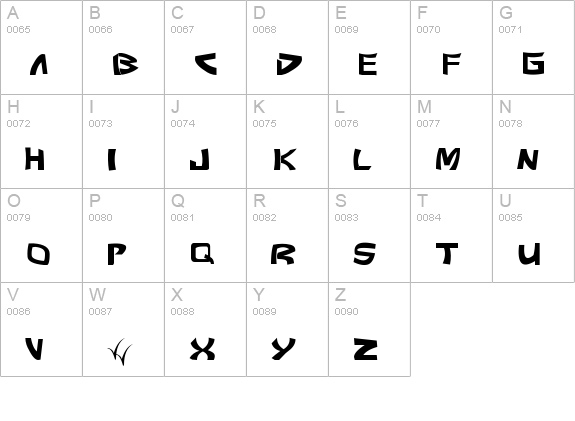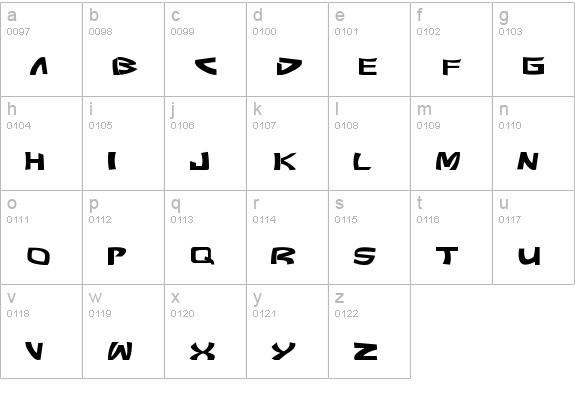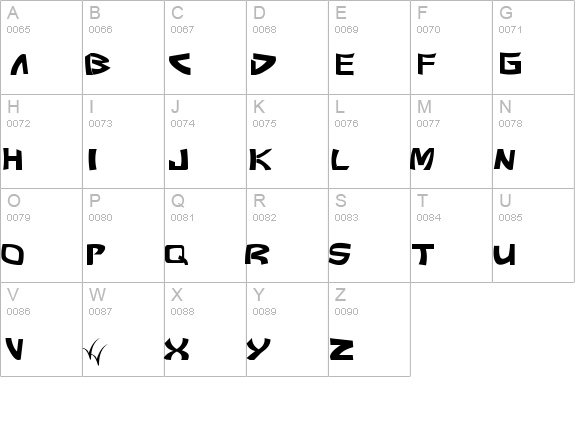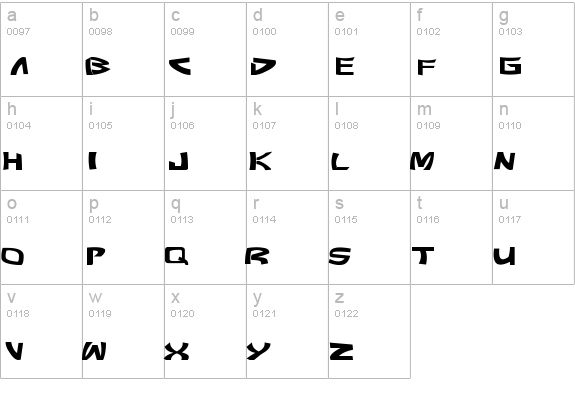
Pundit Font Details
Pundit font is a modern and sophisticated typeface that exudes elegance and style. Its sleek lines and sharp edges make it perfect for adding a touch of class to any design project. With its clean and crisp appearance, Pundit font is versatile and can be used for a variety of purposes, from branding to editorial design. What sets Pundit font apart is not only its timeless design but also the fact that it is available for free download at FontsMarket.com. This means that you can easily access this stunning font and incorporate it into your projects without any cost. Whether you're working on a personal project or a professional assignment, Pundit font is the perfect choice to elevate your designs and make a lasting impression. Download Pundit font today and see for yourself the impact it can have on your work.